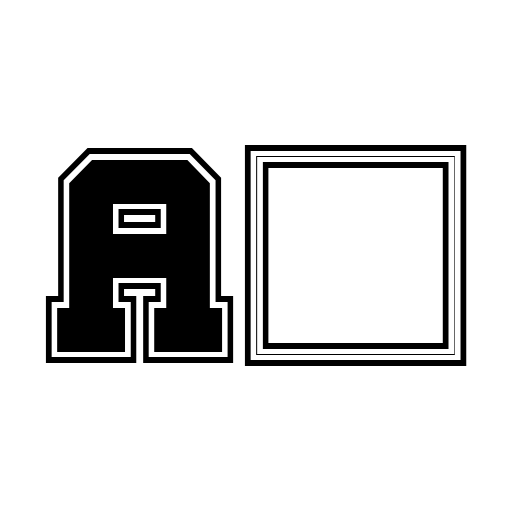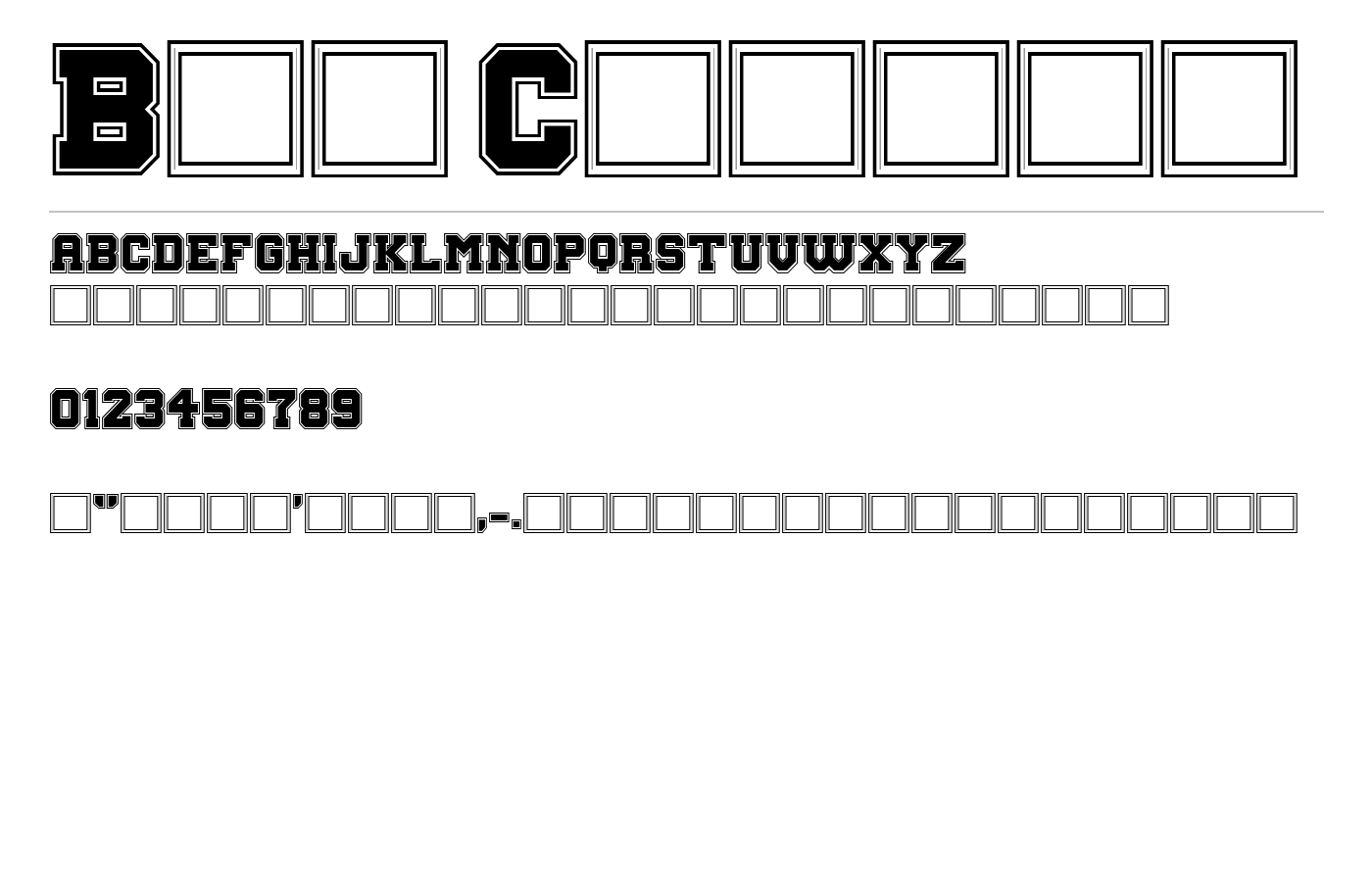
Big Campus Font is a bold, slab serif typeface with a strong, collegiate vibe. Its thick, blocky letterforms and high contrast outlines convey a sporty and vintage feel, making it ideal for logos, posters, and branding related to education, athletics, or school spirit. This font stands out with its solid presence and clear readability, perfect for headlines and display use where a confident, energetic look is needed.
Big Campus Font
About Big Campus Font